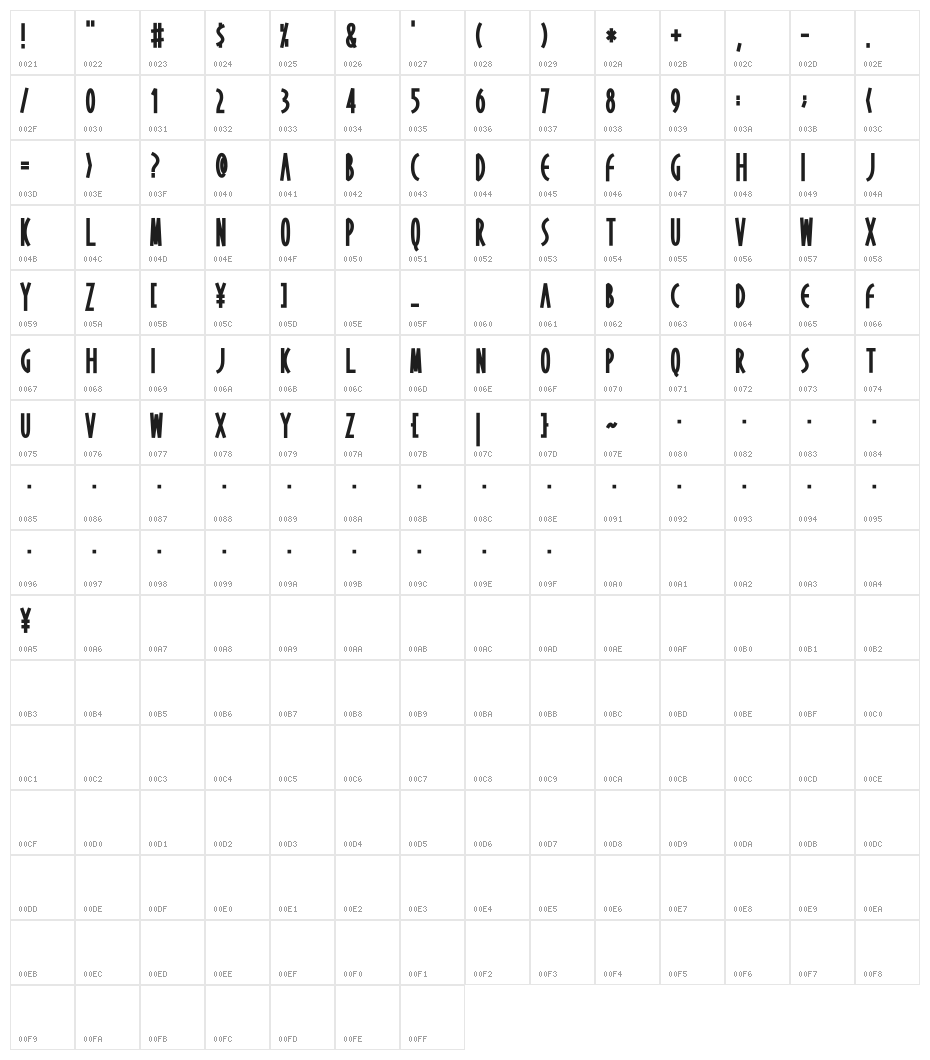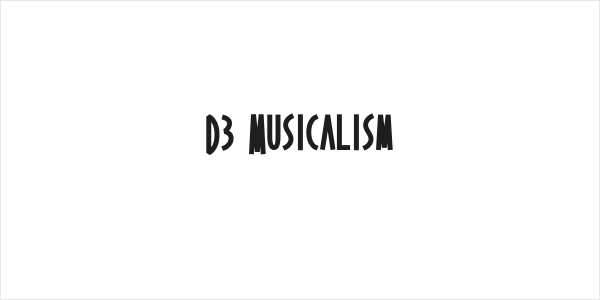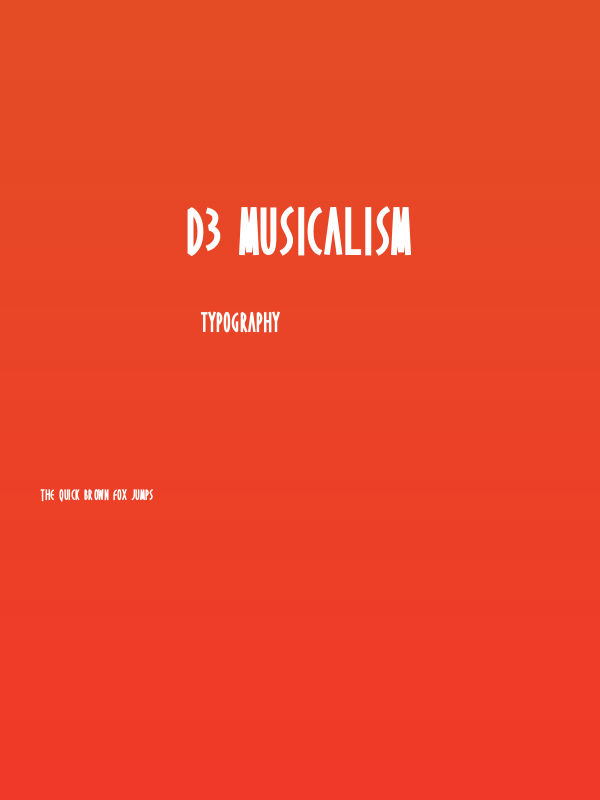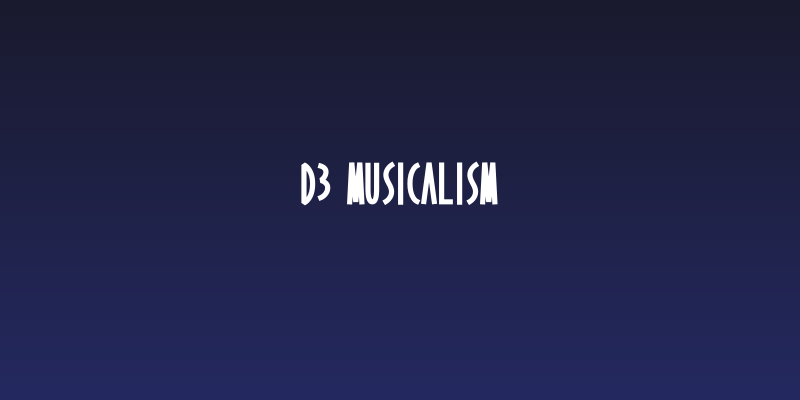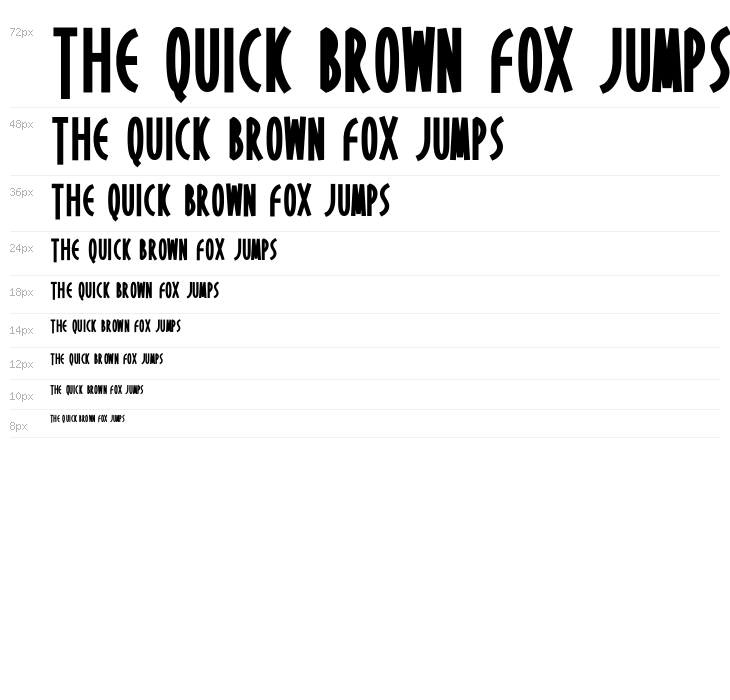
D3 Musicalism Font
D3 Musicalism Description
This font features a bold, dynamic design with a strong presence. The characters are tall and narrow, with a distinctively sharp and angular appearance. The uppercase letters are particularly striking, with a sense of movement and energy that makes them stand out. The lowercase letters maintain the same boldness, ensuring consistency across the typeface. Numbers and special characters are equally bold and maintain the same angular style, making them highly legible and impactful. This font is ideal for projects that require a strong visual statement.
Proposed ProjectsIdeal for music-related posters, album covers, event flyers, and branding that requires a bold statement.